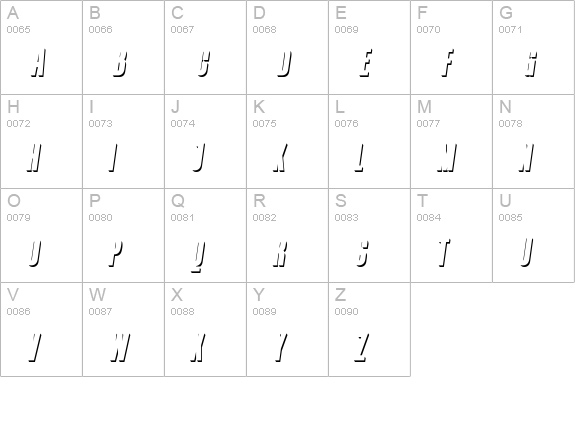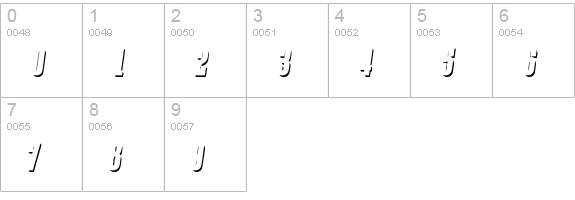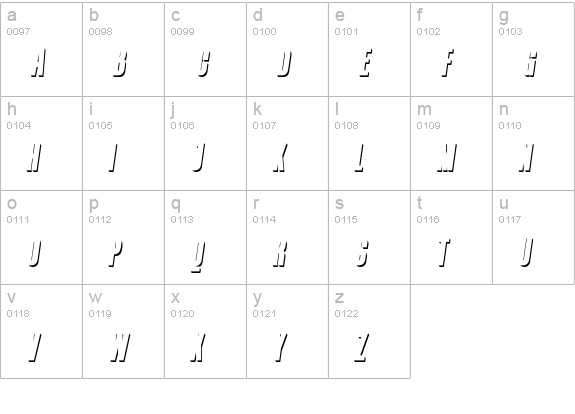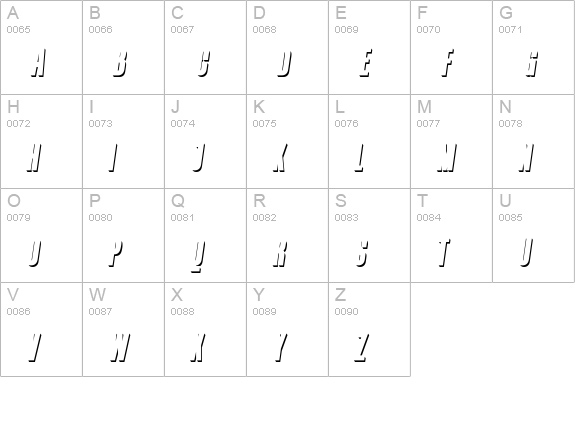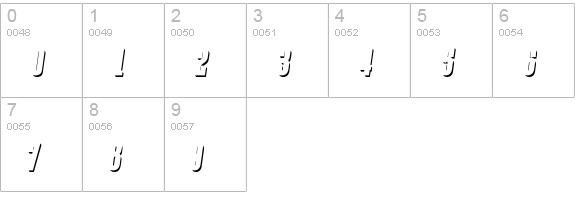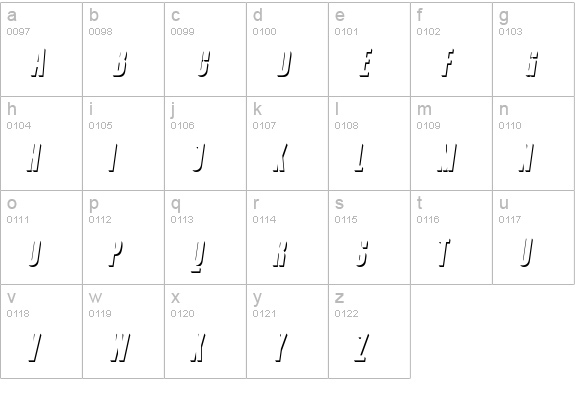
Containment Shade Font Details
The Containment Shade font is a modern and stylish typeface that exudes a sense of sophistication and creativity. Its sleek lines and unique design make it perfect for a variety of projects, from branding to editorial design. The font features a bold and impactful look that will make your text stand out and grab the attention of any audience. What sets Containment Shade apart is its versatility - it can be used for anything from headlines to body text, and everything in between. The font is easy to read, yet has a distinct flair that sets it apart from other typefaces. Best of all, Containment Shade is completely free to download at FontsMarket.com. This means you can start using this beautiful font in your projects right away, without having to worry about any extra costs. So why wait? Download Containment Shade now and add a touch of elegance to your designs.